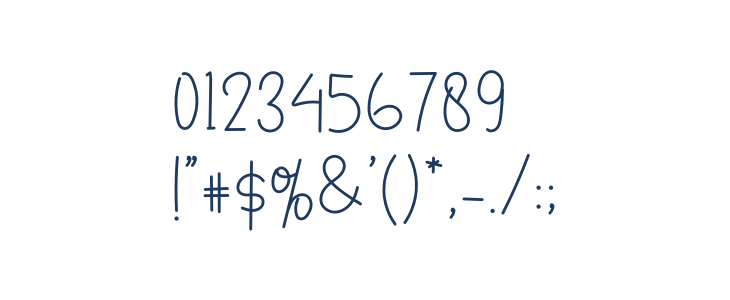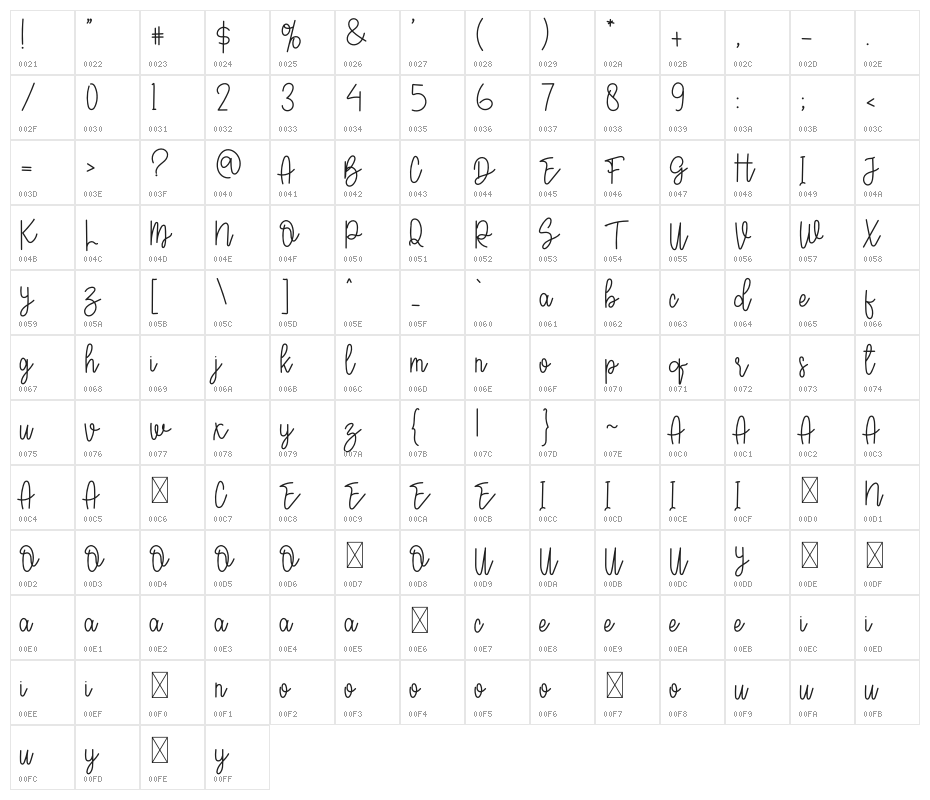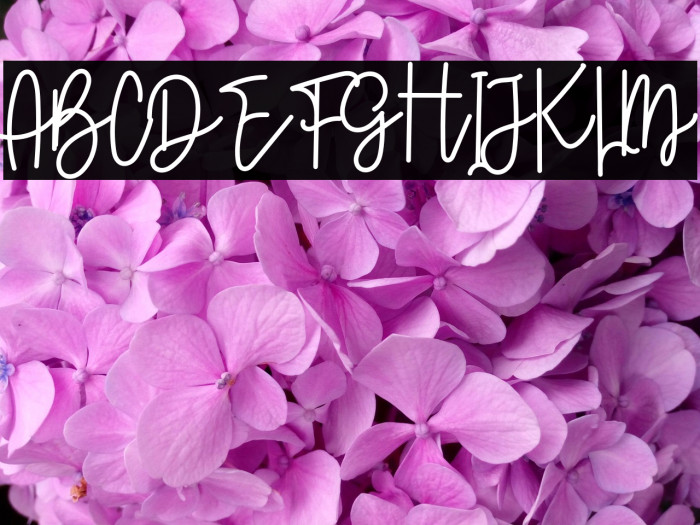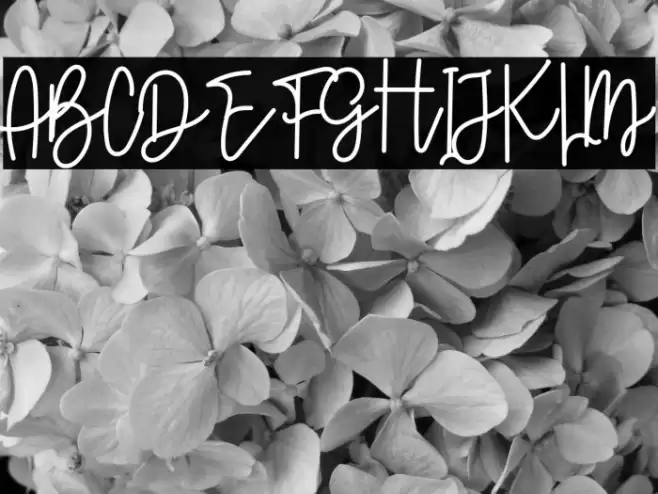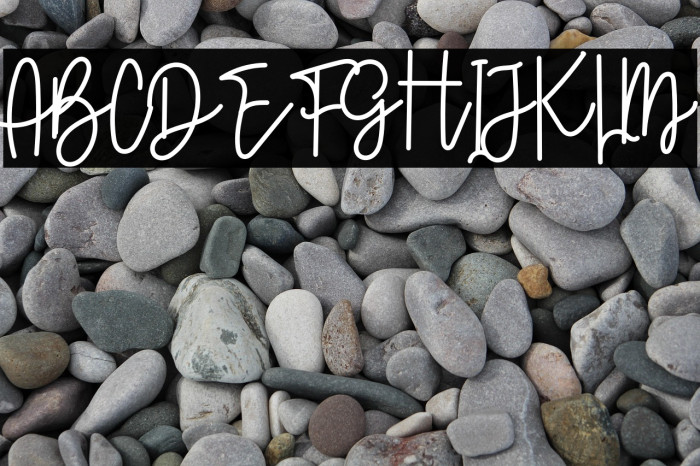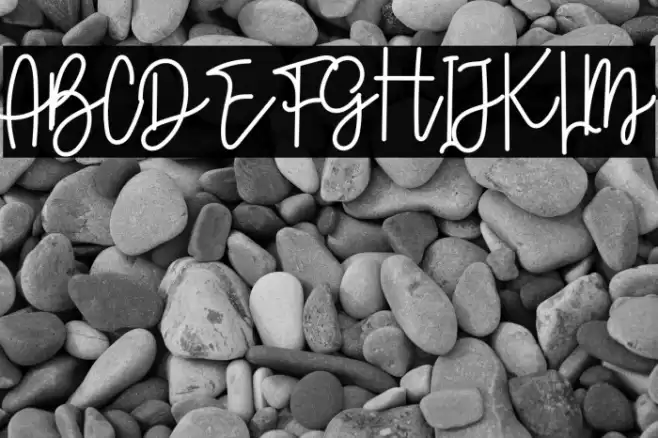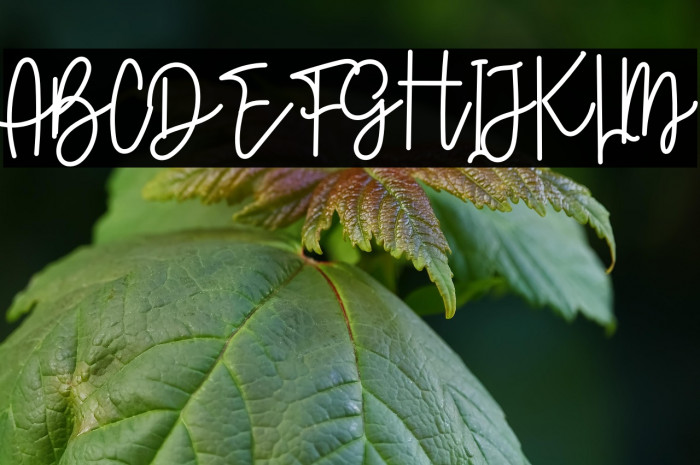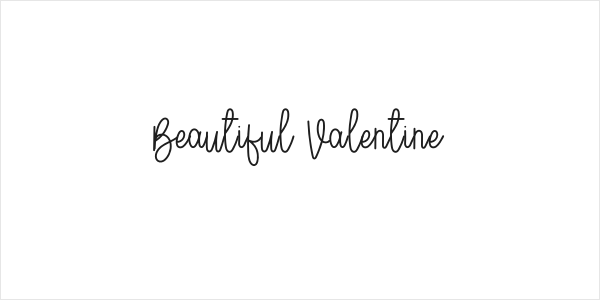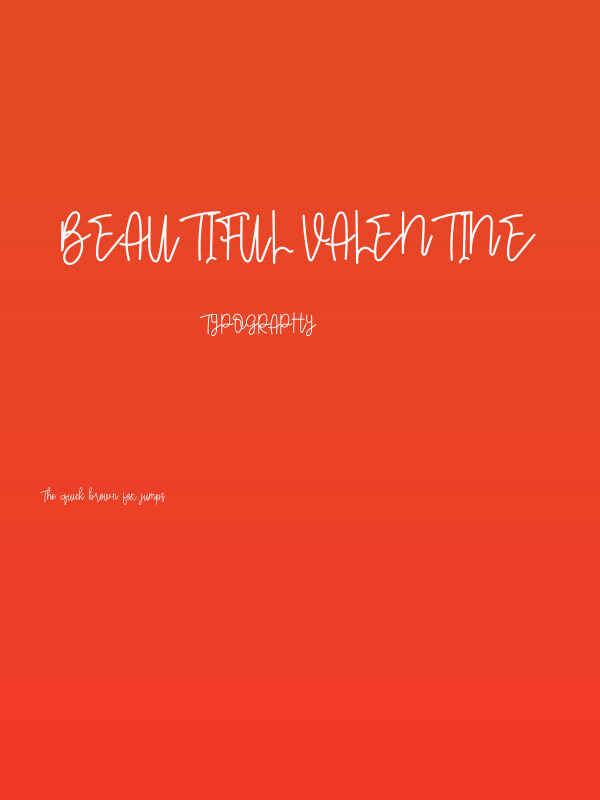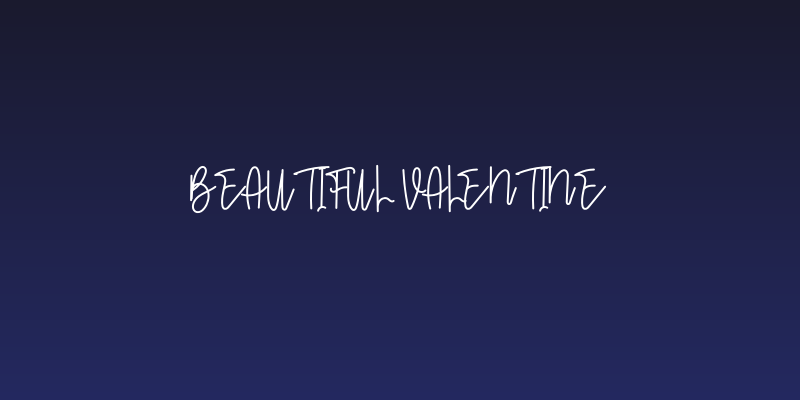
Beautiful Valentine Font
Beautiful Valentine Description
This font exudes a playful and romantic charm, characterized by its flowing, handwritten style. The letters are connected in a cursive manner, giving it a personal and intimate feel. The strokes are consistent in width, providing a smooth and elegant appearance. The uppercase letters are tall and slightly narrow, while the lowercase letters maintain a balanced and harmonious look. The numbers and special characters are crafted with the same fluidity, ensuring a cohesive overall design. This font is perfect for projects that require a touch of elegance and warmth.
| Overall Style | Romantic, Elegant, Playful |
| Use Case | Headlines, Invitations, Personal notes |
| Proposed Projects | Ideal for wedding invitations, greeting cards, personal letters, and romantic-themed designs. |